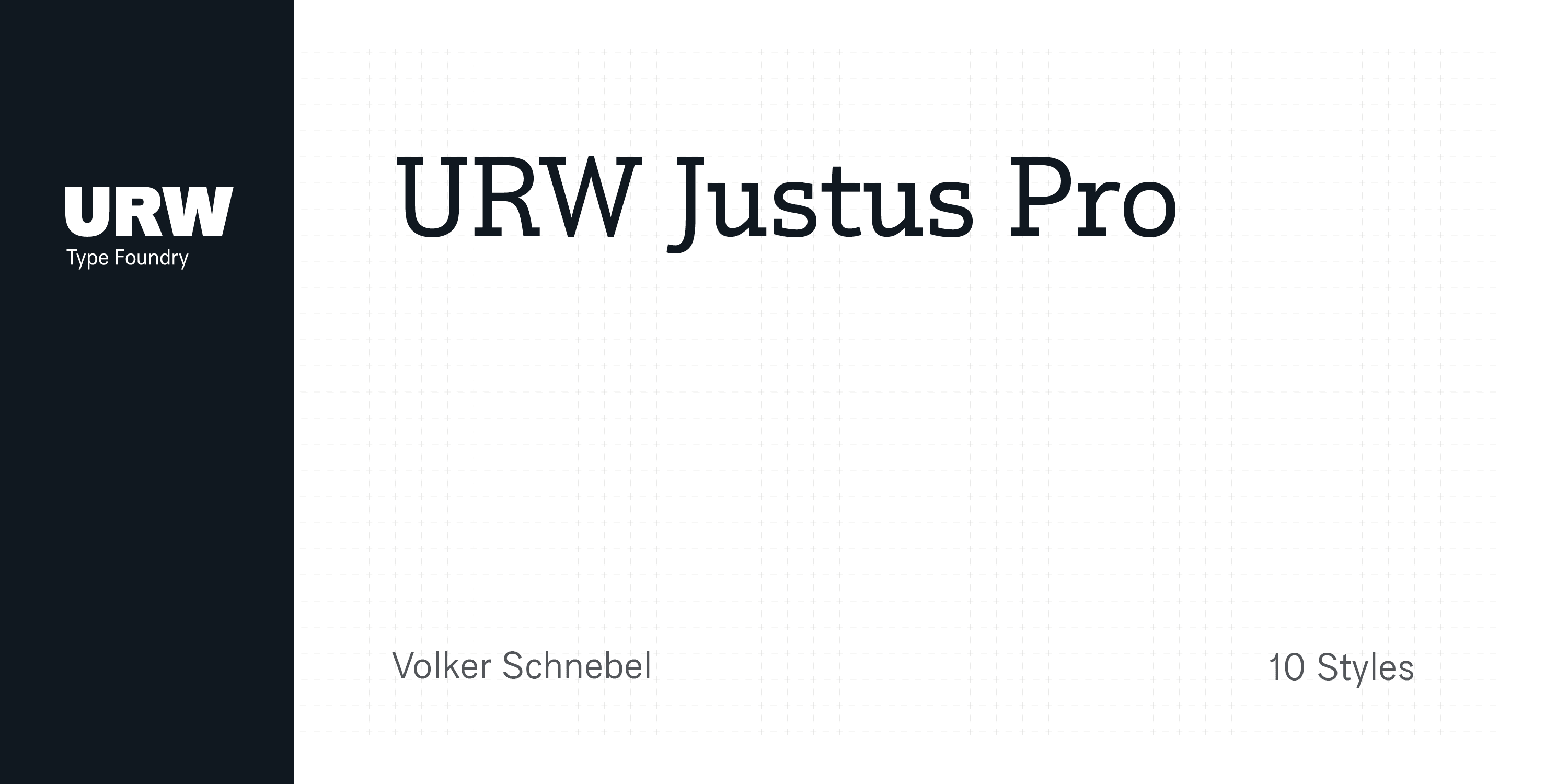
Justus Pro Font is ideal for legal firm branding, judicial system communications, professional law offices, court documentation systems, legal education materials, justice advocacy campaigns, ethical business presentations, constitutional law publications, fair trade organizations, and principled corporate identities. This authoritative typeface excels in applications where legal authority and ethical integrity need to be communicated with professional justice and moral clarity that embodies the essence of fair legal practice and the unwavering principles found in ethical professional conduct and judicial excellence.
What makes Justus Pro Font exciting is its remarkable ability to convey the unwavering integrity and moral authority that defines the highest standards of legal practice through its precisely balanced letterforms that project the kind of ethical strength and professional reliability that citizens expect from their legal institutions and justice system. The font embodies the spirit of legal excellence with its principled construction and justice-focused proportions that suggest the careful reasoning and systematic fairness required for sound legal judgment and ethical professional practice. Its meticulously crafted character details and authoritative personality create an atmosphere of trustworthy competence that resonates with legal professionals, judicial institutions, and ethical organizations who understand the critical importance of maintaining public trust through demonstrated integrity and professional excellence.
The Justus Pro Font family typically includes Light, Regular, Medium, and Bold weights, each maintaining the signature legal characteristics and professional authority. Some versions offer comprehensive character sets with legal symbols and judicial notation, alternative elements designed for court documentation, and specialized variants optimized for legal briefs and constitutional texts. The family may also include condensed styles for efficient legal document layouts and display cuts designed for maximum authoritative impact in judicial and legal applications requiring authentic professional credibility and ethical strength.
Whether you're creating legal practice identities, judicial communications, or ethical business materials, Justus Pro Font Free Download delivers the perfect legal authority your justice-focused projects deserve. Its professional character and ethical styling make it an invaluable asset for law firms, judicial institutions, and ethical organizations working in legal practice, judicial administration, and principled business sectors where authentic legal credibility and unwavering ethical integrity are essential for maintaining public trust and establishing professional leadership in legal and ethical professional environments.